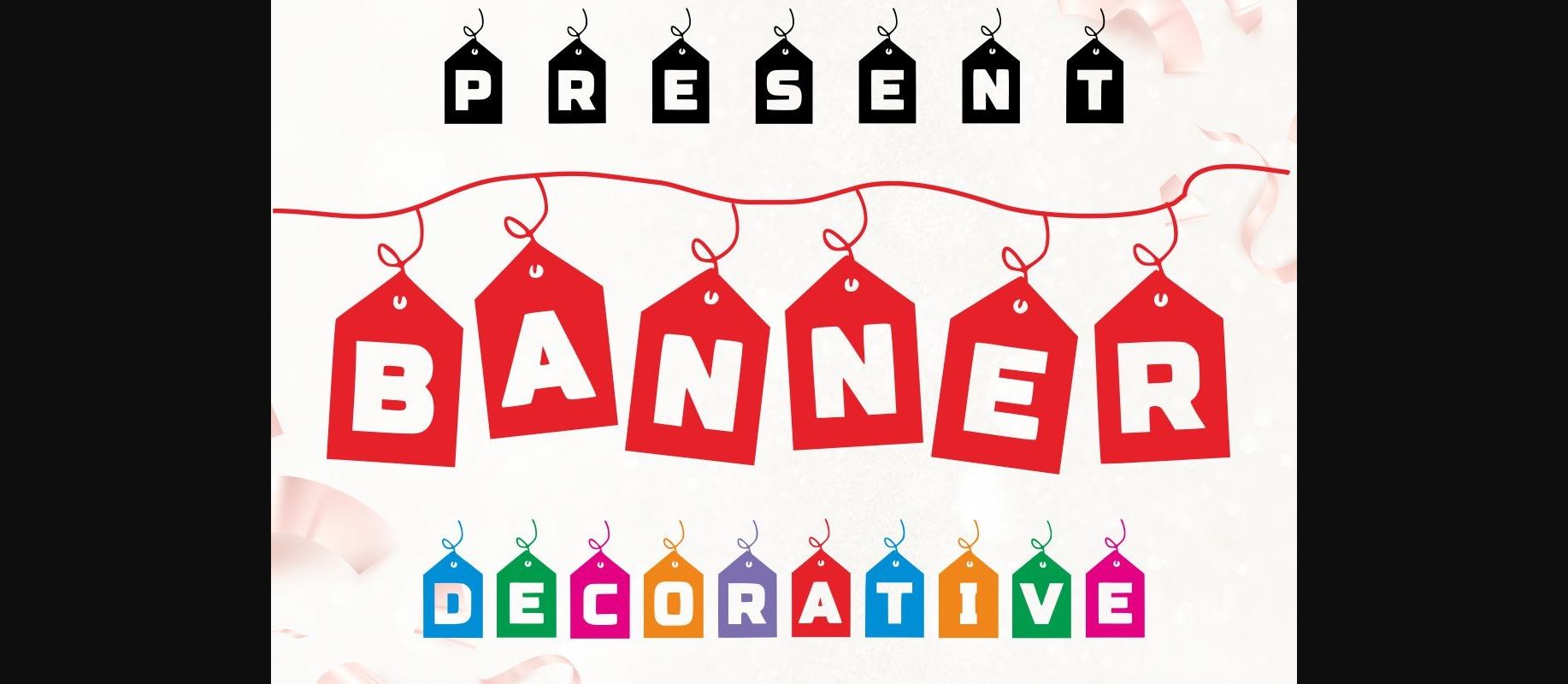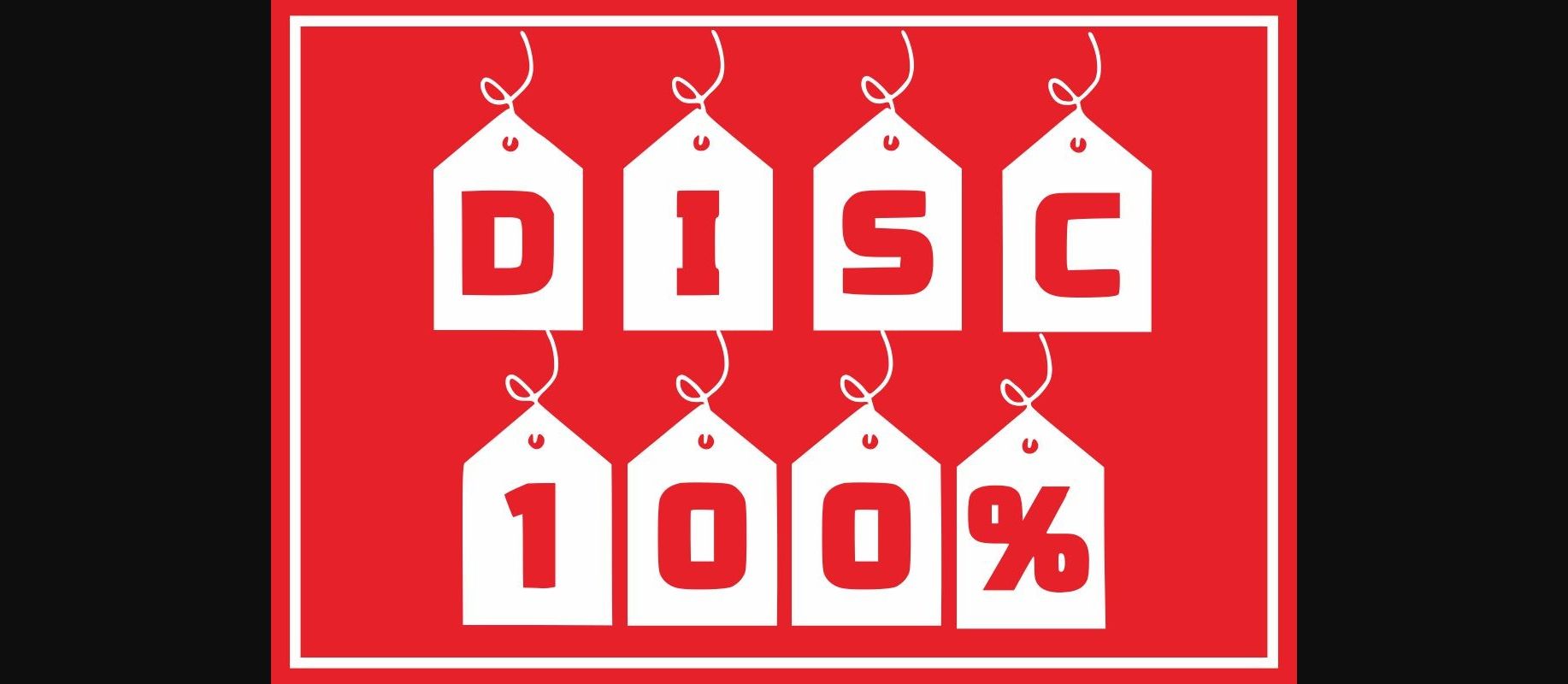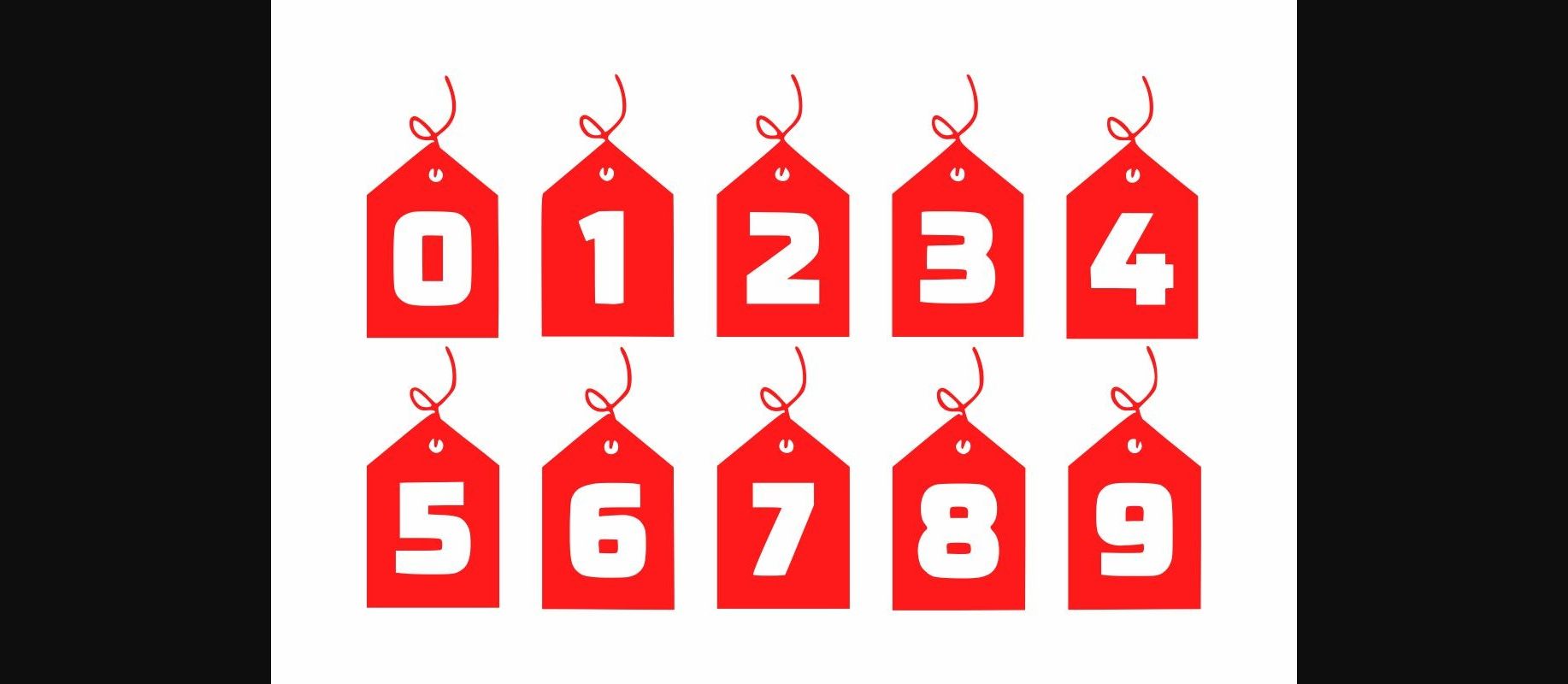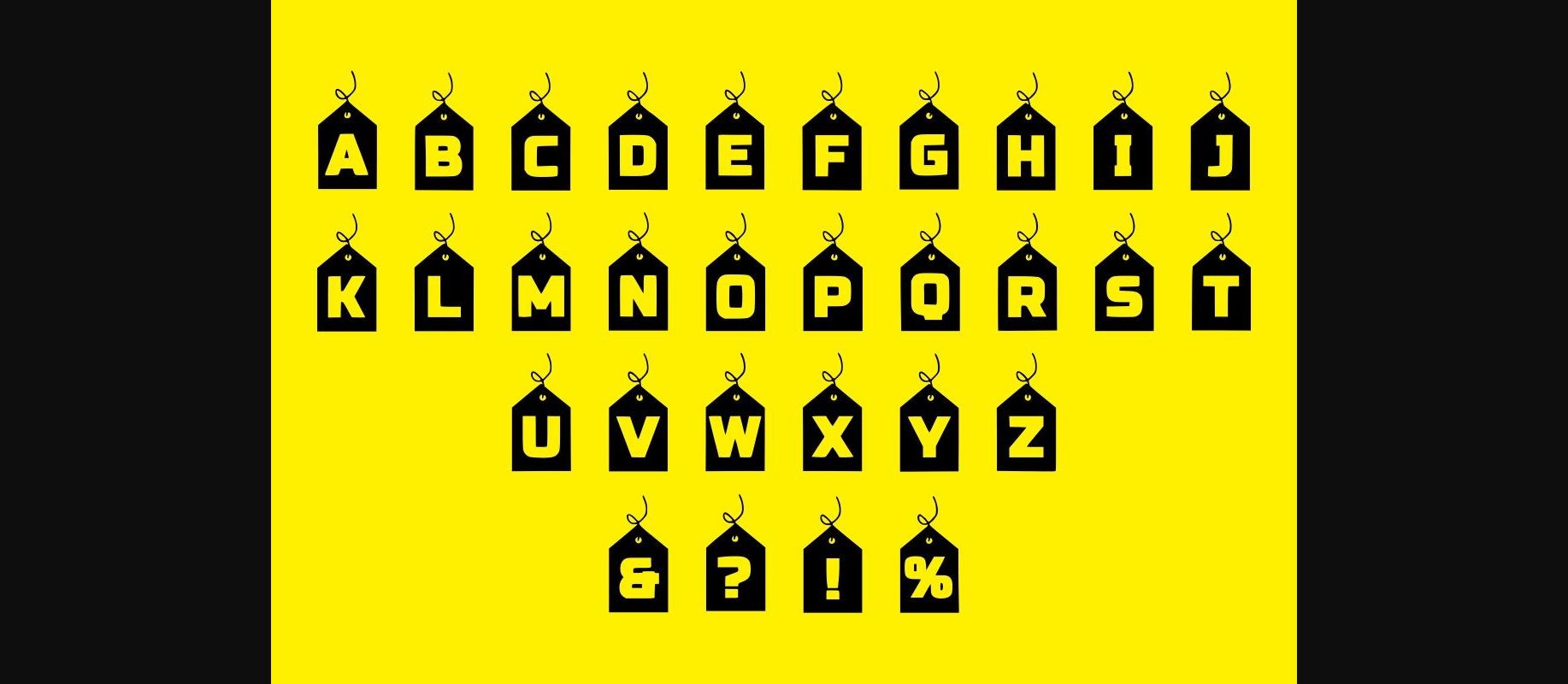
Banner Font
About Banner Font
Banner is a cool and fun decorative font. Add it to each of your promotion, price tag, party invitation, gathering or pretty much any design that requires a touch of youth and joy.